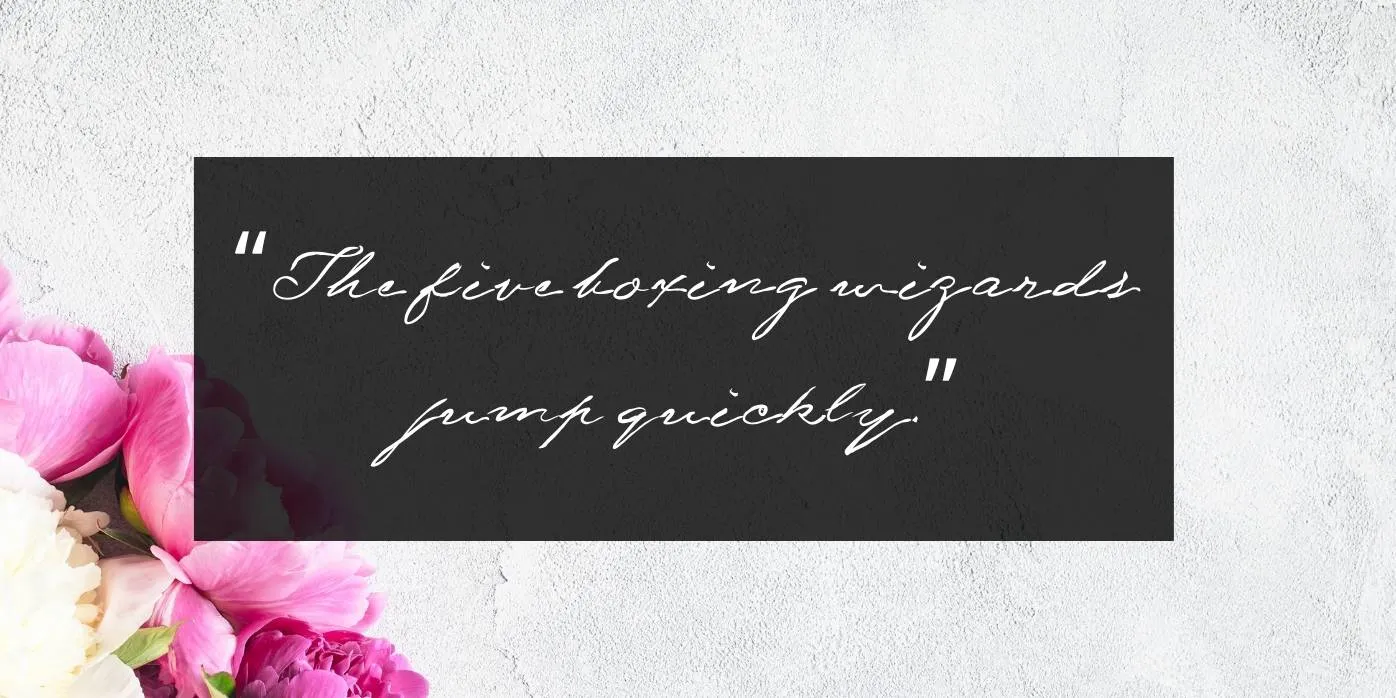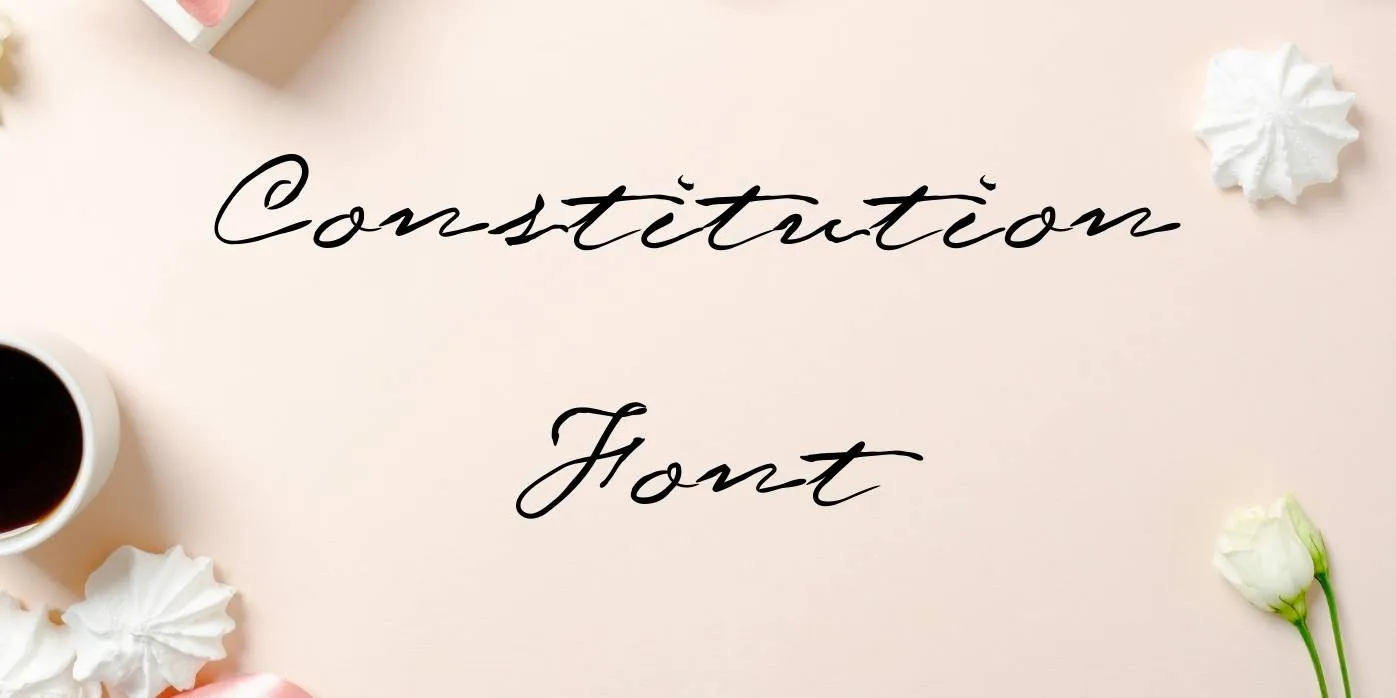
Constitution Font
Constitution Font is a digital typeface that was created to honor the United States Constitution. The typeface is based on the original hand-lettering of the Constitution by its signers. It was created by Woodcutter, a type foundry in the United Kingdom. This typeface Font has two styles, Regular and Bold.
The Regular style is based on the handwriting of George Washington, while the Bold style is based on the handwriting of Thomas Jefferson. It is available in both TrueType and OpenType formats. It supports Latin, Cyrillic, and Greek character sets. It is perfect for Adobe Photoshop and MS Word.